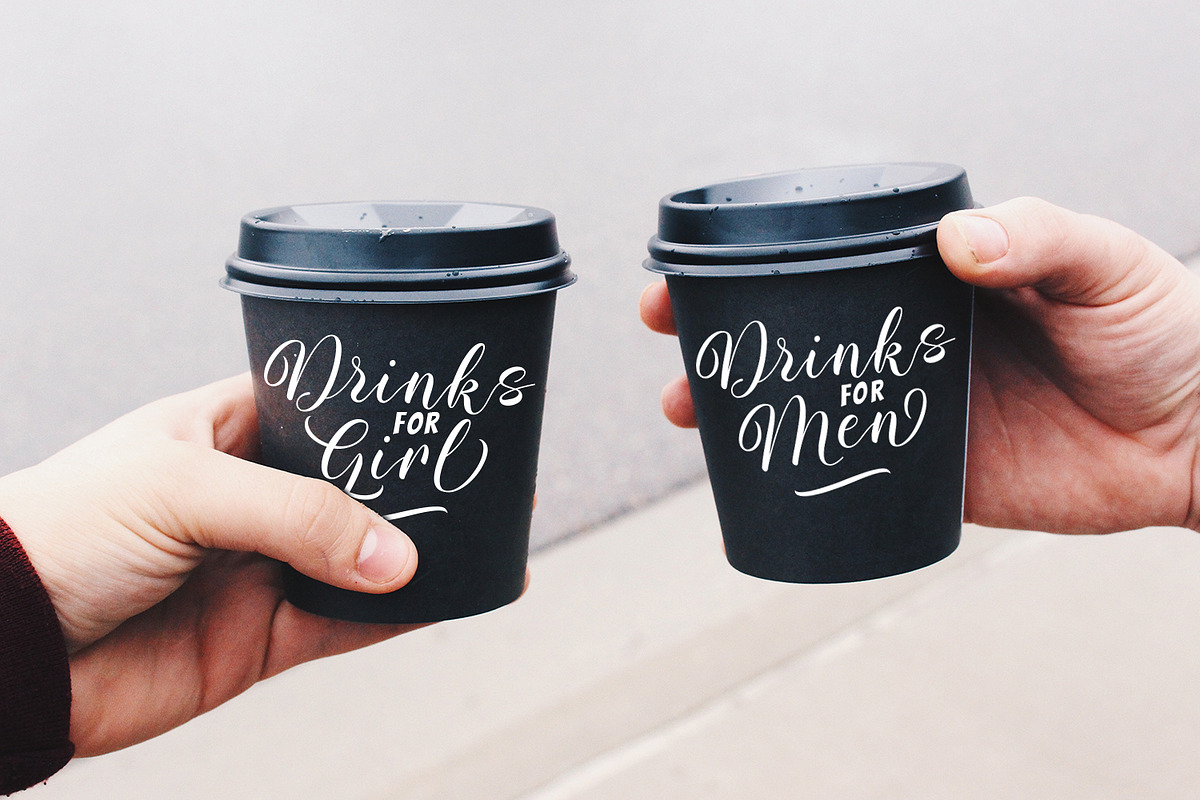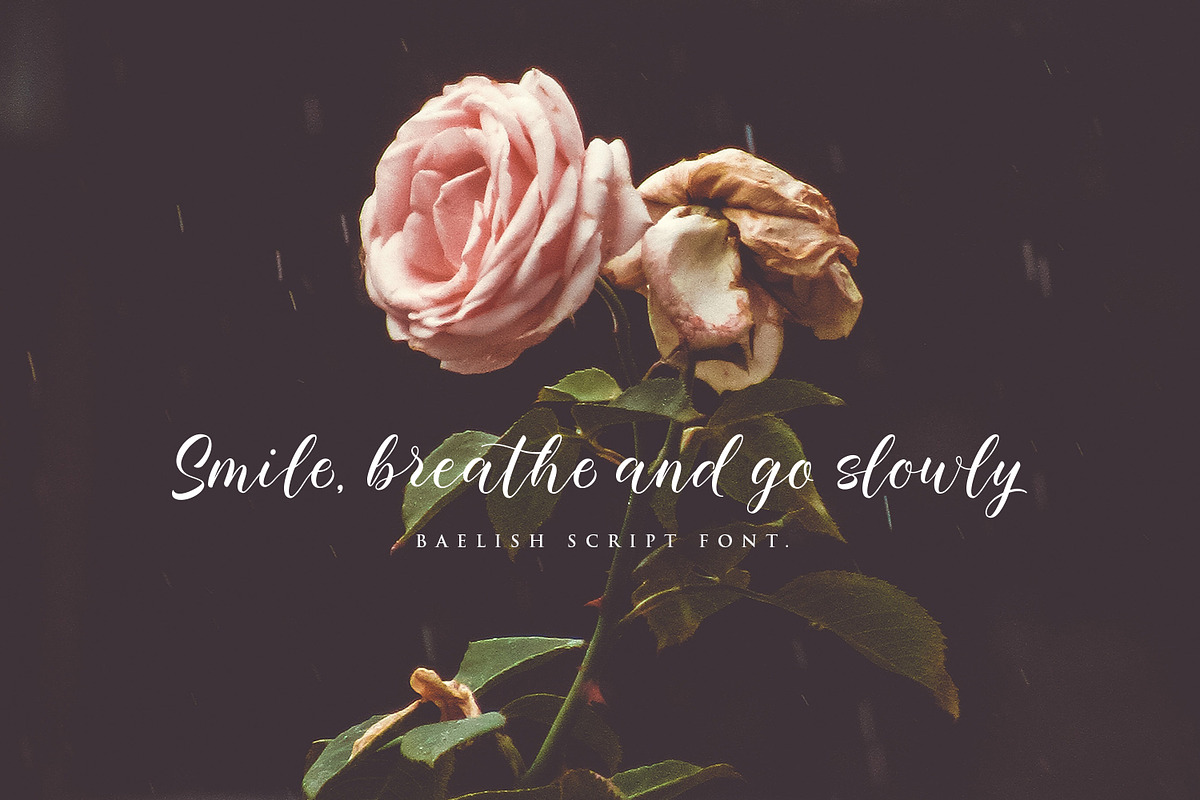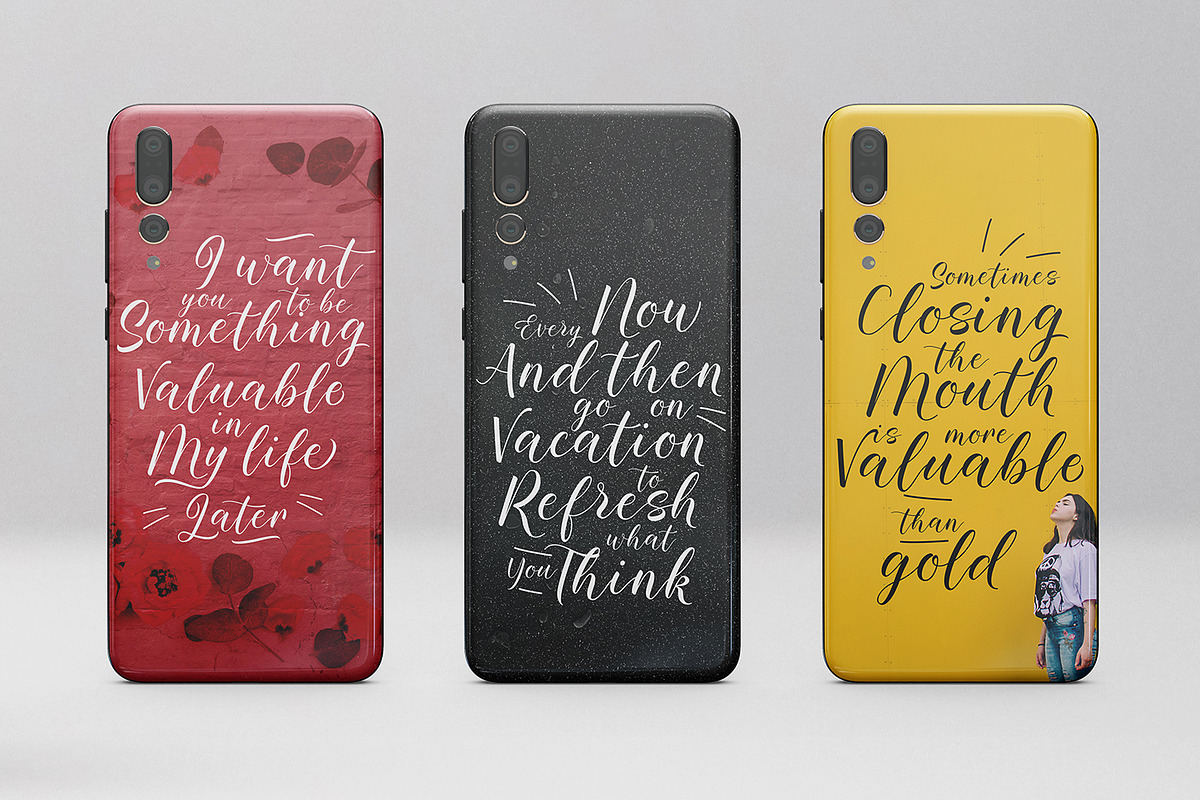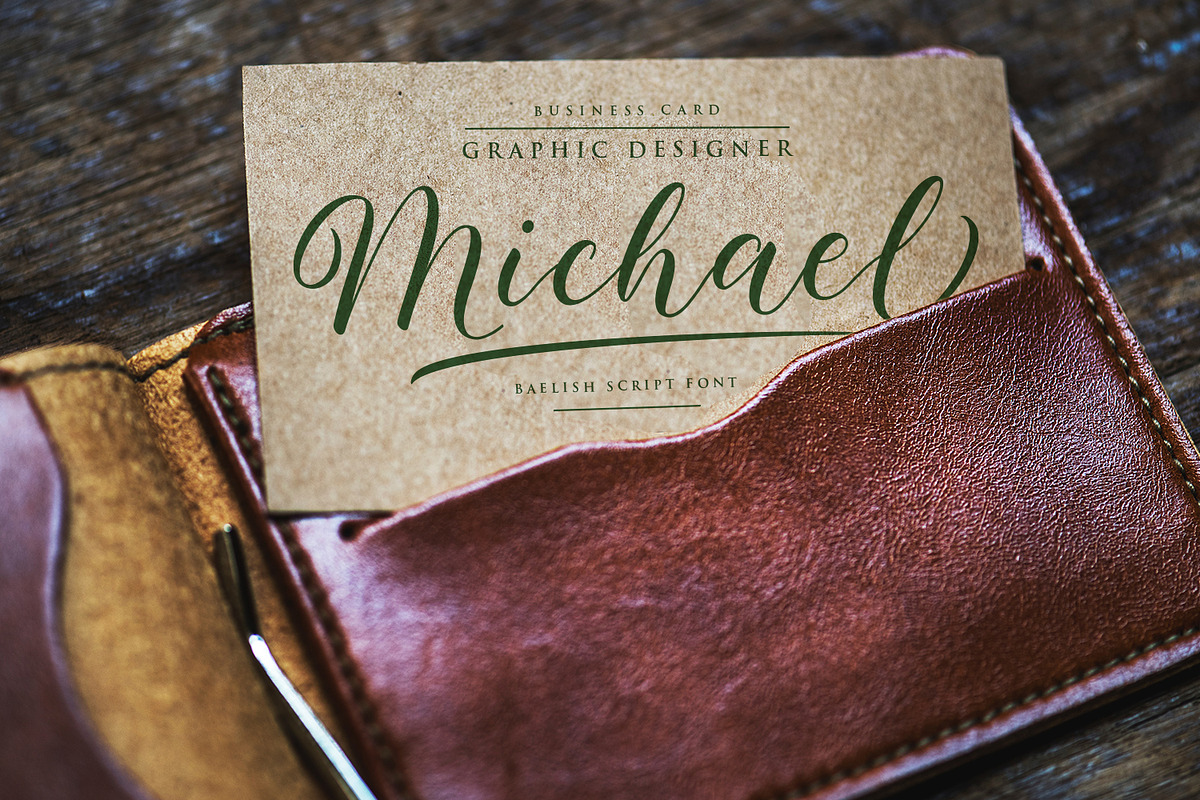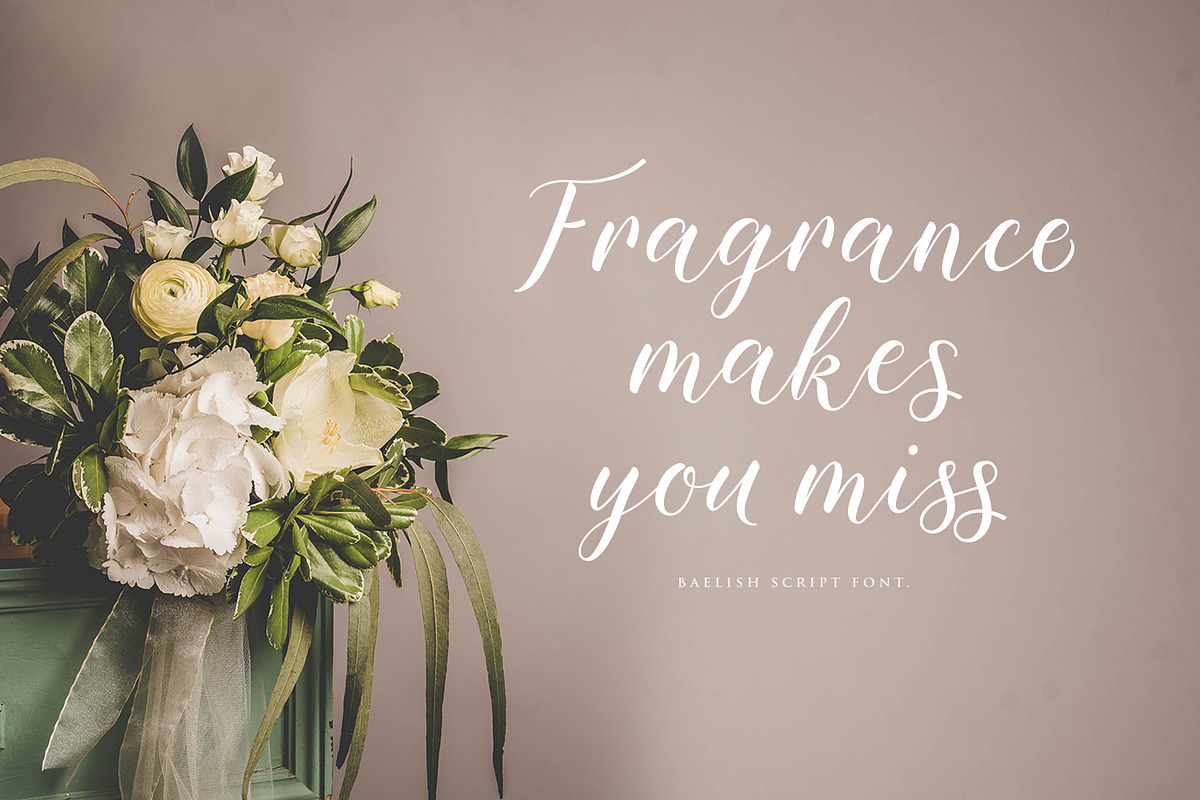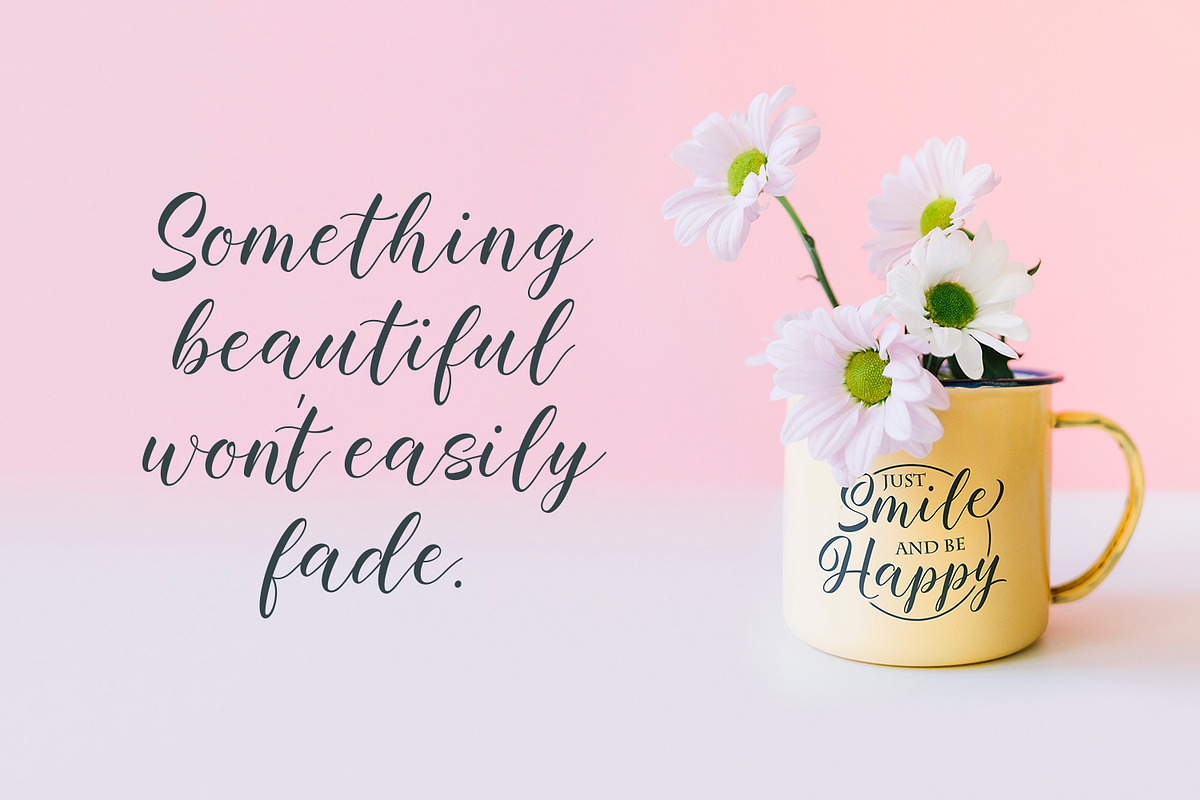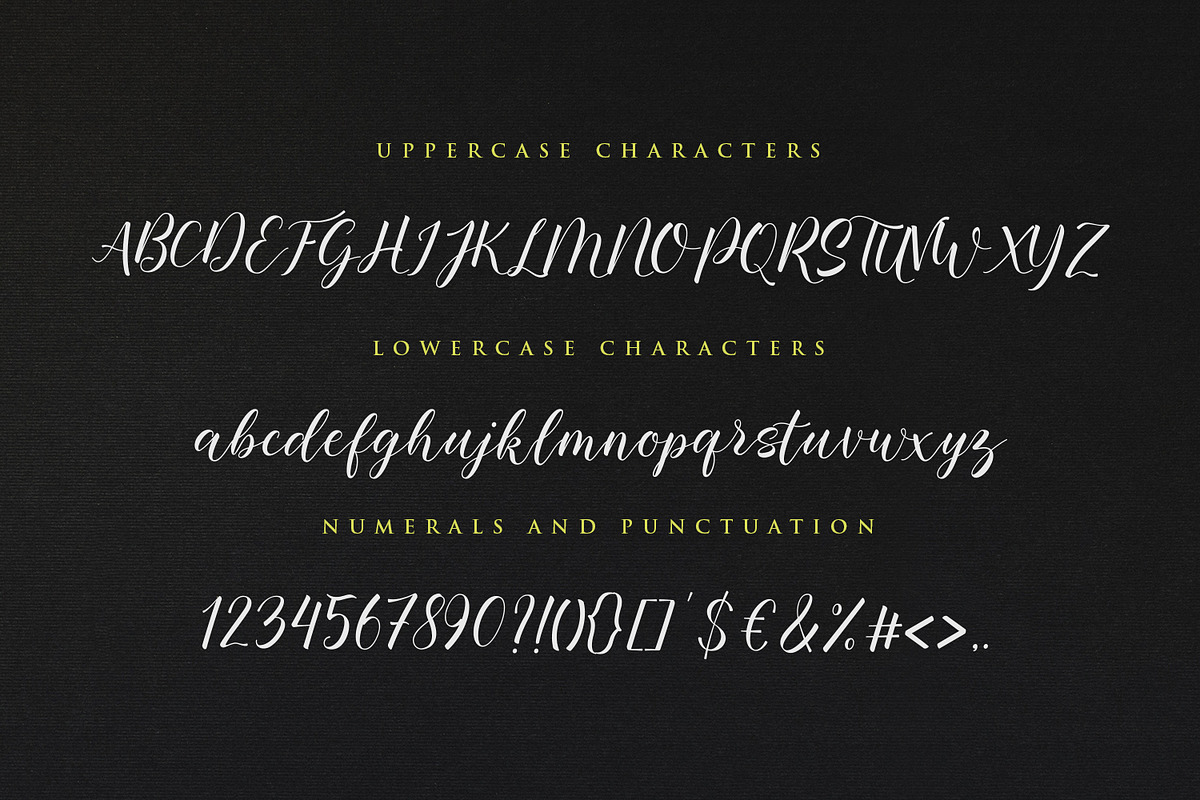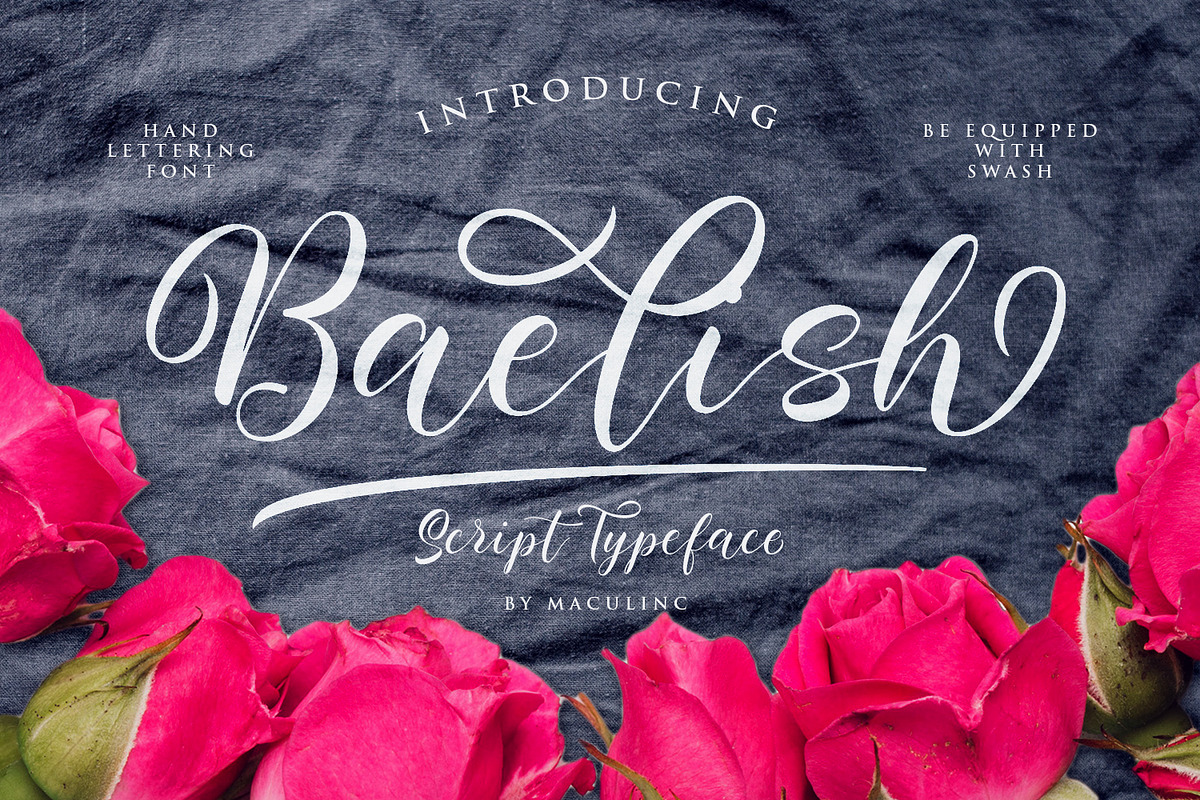
Baelish - Script Font
Introducing Baelish Script! Perfectly Playful new font pair. Creative and Relaxing, together or apart, Baelish Font Fixing allows you to create lots of beautiful typographic designs in an instant, just in time for all labels, cards, and branding!
Perfect for DIY projects, greeting cards, labels, quotes, posters, wall art, branding, packaging, websites, photos & photography overlays, signs, window art, scrapbooking, tags, and more!
Baelish Script has alternative uppercase and lowercase charcter sets, as well as Standard Ligatures options - allowing you to make your design truly unique. Don't miss, to add Swash to the design you match to make it more attractive.
The alternative characters in this font were divided into several OpenType features such as Stylistic Alternates, Ligature and Ligature Alternates.